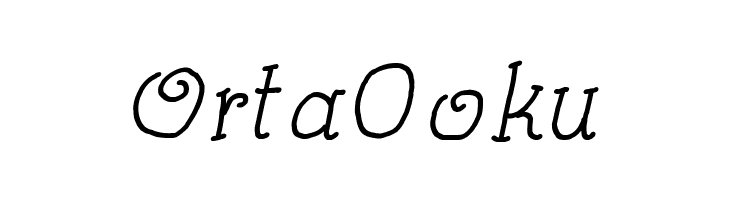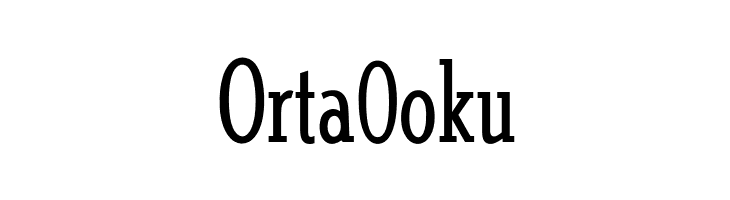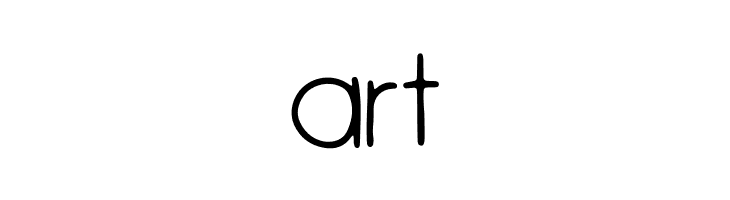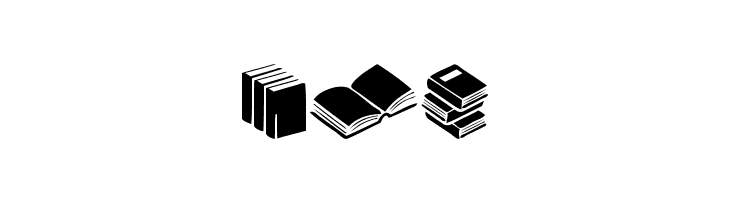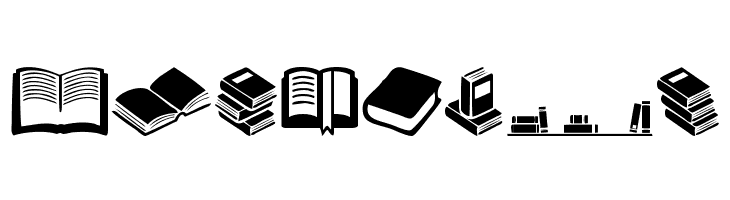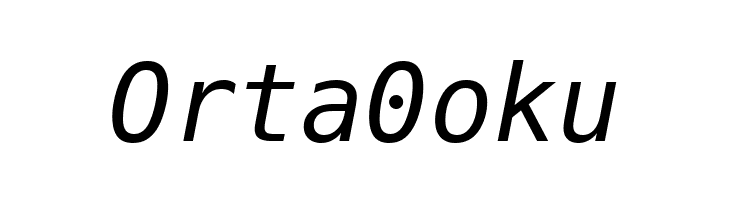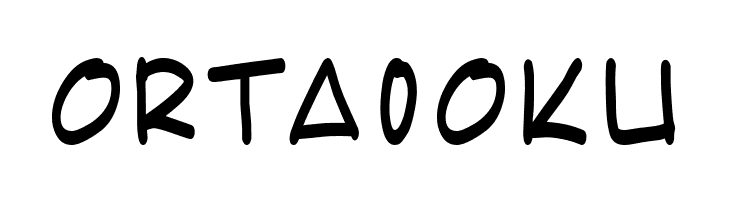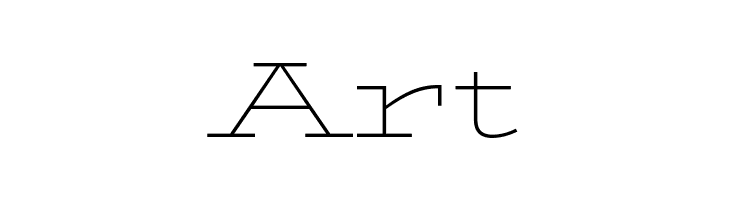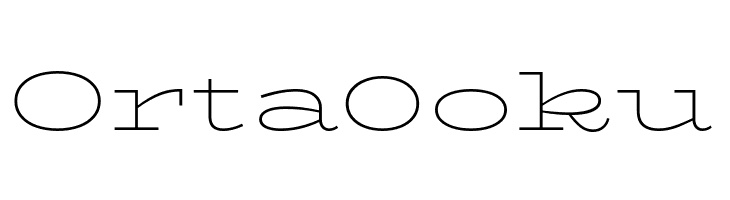
A playful, italicized handwritten font with smooth strokes and moderate contrast.
A classic serif font with medium weight and moderate contrast, ideal for formal and structured designs.
A playful handwritten font with rounded, informal characters.
A bold pictogram font of library and book-themed icons.
A clean, monospaced italic font with medium contrast and modern appeal.
A playful, handwritten-style font with bold, rounded strokes.
A modern, expanded, extra light font with low contrast and smooth strokes.
A sleek, modern, and extra light italic font with excellent readability.